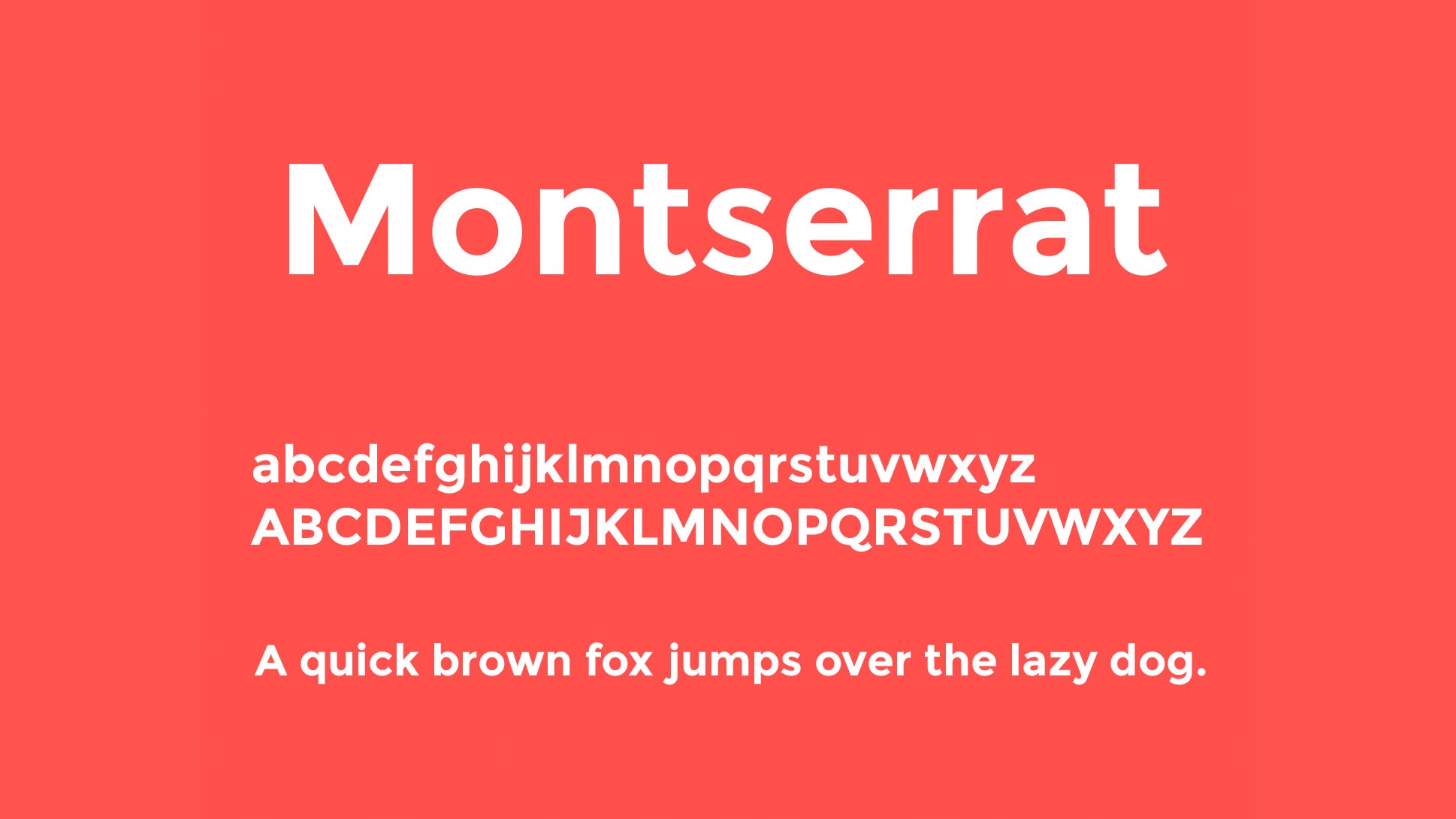
Best free fonts for reading. Garamond — developed in the 16th century by parisian engraver claude garamond, it is a popular font for books.
Best Best Fonts For Online Reading Free Download, This elegant yet sturdy font was designed in 1993 and is also the best font for small print. It's not as blah as times.
Since roboto is already so familiar to internet users, it’s a logical choice for your. These results should provide you with a good idea of how your readers react to fonts. The lighter the weight, the more aesthetically pleasing this font is in nature. Here we list the top three reasons why picking an appropriate font matters.
Best fonts for improving reading experience Graphic Design Stack Exchange Palatino’s main selling point is the fact that, as a serif.
This font is so easy to read that it can be used at sizes as small as 6 pts for print and still be read effortlessly. Best free fonts for ebooks. This was very surprising to me. Comic sans was the most illegible typeface.
There are some interesting curves in the serifs that helps make it a bit more purty as far as serif fonts go. These results should provide you with a good idea of how your readers react to fonts. You can decide text sizes for high interaction pages case by case: The font also comes with italics variant to help emphasize a certain portion of the text, if needed. A guide to the best fonts, styles, and practices for dyslexic readers.
However, the best designers out there spend a considerable amount of time trying to select the very best font for what. It's not as blah as times. It has a noticeable boldness that makes it stand out in. This elegant yet sturdy font was designed in 1993 and is also the best font for small print. Pin on Fonts.
Choosing the appropriate script may seem like a simple task that requires. Looking for the right font might seem like a simple task and one that does not require a lot of thoughtfulness. For me the best font for reading online is on paper, outside, in the winter, doves type. Pt sans & pt serif. Cursive Fonts Top 8 FREE Cursive Fonts for Your Blog Grab and Go!.
Inspired by the art deco movement of the 1920s, this typeface works best for books with a timeless, classic feeling. Here we list the top three reasons why picking an appropriate font matters. Without further ado, let’s get to some of the best fonts for blogs. Or sf pro rounded from apple. Reading Font Download Free for Desktop & Webfont.
Although bigelow did acknowledge that there may be some bias on his part since he studied with the font’s creator, zapf. The clean and geometric aesthetic, complements baskerville quite well. Comic sans was the most illegible typeface. Jenson —a more recent addition to the world of fonts, jenson was developed specially for adobe systems, but is based on a text face cut by nicolas jenson in venice around 1470. The Top 12 Easiest Fonts to Read Vistaprint.
The clean and geometric aesthetic, complements baskerville quite well. Or sf pro rounded from apple. If you're going smaller than 12 points, verdana at 10 points is your best choice. Palatino’s main selling point is the fact that, as a serif. Innovative Dyslexie typeface is designed to be read by people with dyslexia.
The best font for studying and taking study notes is a harder to read, unfamiliar font researches have shown. This is the google search font and a popular one for blogging. Palatino’s main selling point is the fact that, as a serif. 15 best fonts that make your website easy to read. Best fonts for improving reading experience Graphic Design Stack Exchange.
A good font could be the difference between someone reading the book for one minute or half an hour. These results should provide you with a good idea of how your readers react to fonts. Without further ado, let’s get to some of the best fonts for blogs. Garamond — developed in the 16th century by parisian engraver claude garamond, it is a popular font for books. Reading Font Download Free for Desktop & Webfont.
Text reads differently on paper than on a monitor screen. Comic sans was the most illegible typeface. This font is so easy to read that it can be used at sizes as small as 6 pts for print and still be read effortlessly. It's not as blah as times. Best reading font Bookerly Font (Amazon Kindle font for every system.
These results should provide you with a good idea of how your readers react to fonts. 15 best fonts that make your website easy to read. It is important that the font is easy to read. This font is the perfect choice for websites with a female demographic. Reading Font Webfont & Desktop MyFonts.
Jenson —A More Recent Addition To The World Of Fonts, Jenson Was Developed Specially For Adobe Systems, But Is Based On A Text Face Cut By Nicolas Jenson In Venice Around 1470.
Therefore, the font that is best for printing should not always be used for a website, and vice versa. Choosing a suitable typeface for an ebook is crucial to the overall reading experience. Of course, this doesn’t mean that these are your best options. Text reads differently on paper than on a monitor screen.